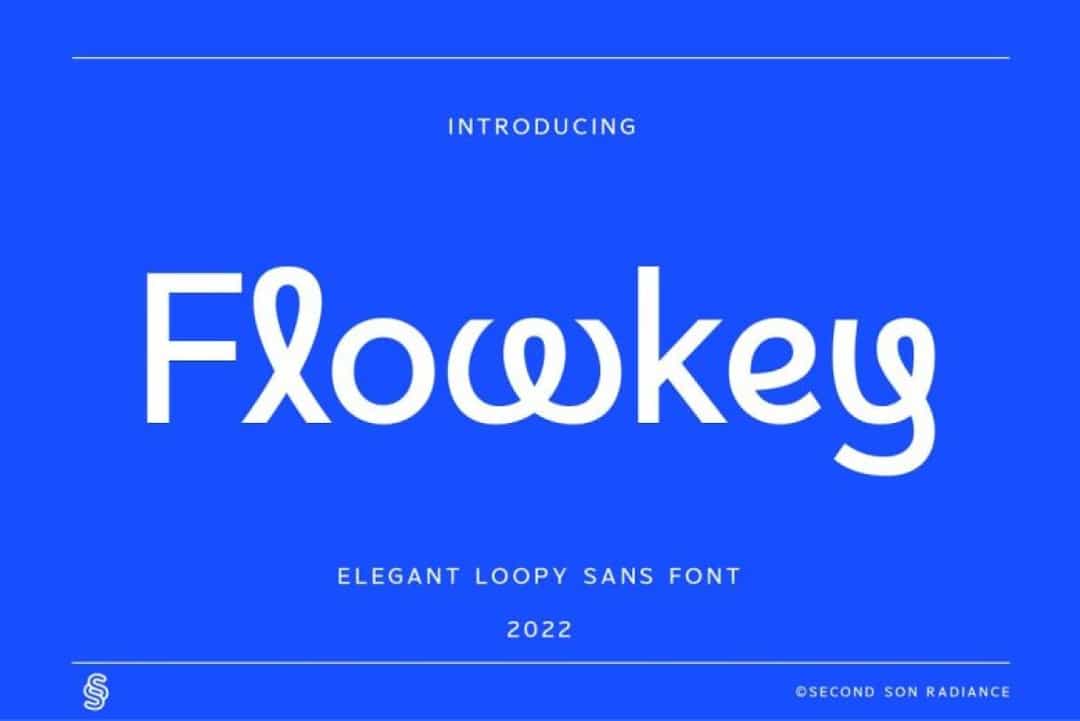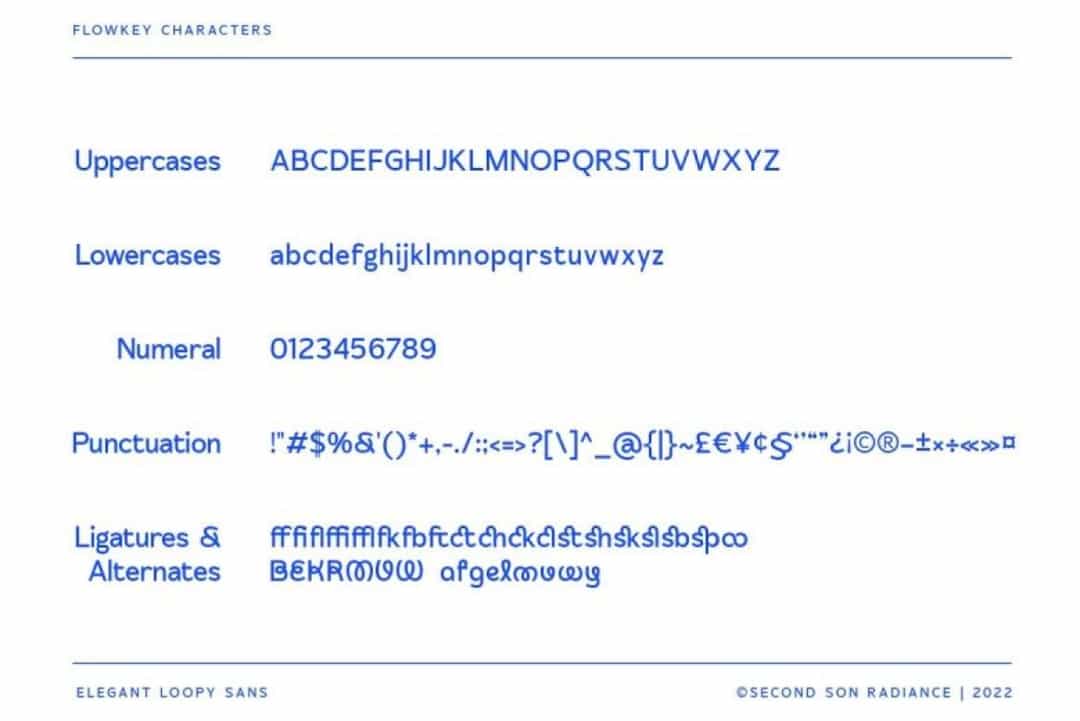
“Flowkey” is an elegant and timeless loopy sans font perfect for design projects such as wedding invitations branding card fashion events such as logotype apps cover or book titles art quotes stylish logos stylish editorial designs etc.